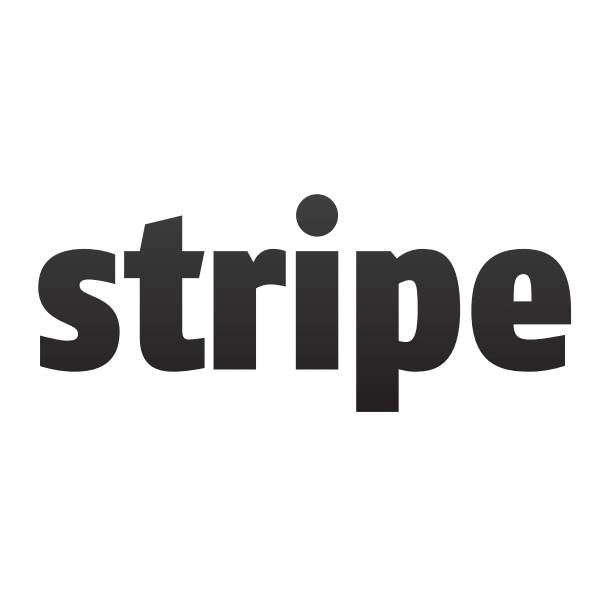
What Is Logo Stripe (Old) Font.
Web Fago Was Designed By Ole Schäfer And Published By Fontfont.
A stripe logo can be widely used for the team,. Web the stripe logo is a text emblem. Running the font through whatthefont gave me camingodos pro condensed extra bold which has a very similar feel to the stripe.com font.
At The Same Time, The Sharp Elements Of The Letters Guarantee Confidentiality.
Web find the stripe style guide with brand assets such as logos, colors, fonts, and more. Web the 2009 stripe design was just their company’s name written in turquoise lowercase letters. Dec 07, 2019 at 18:25.